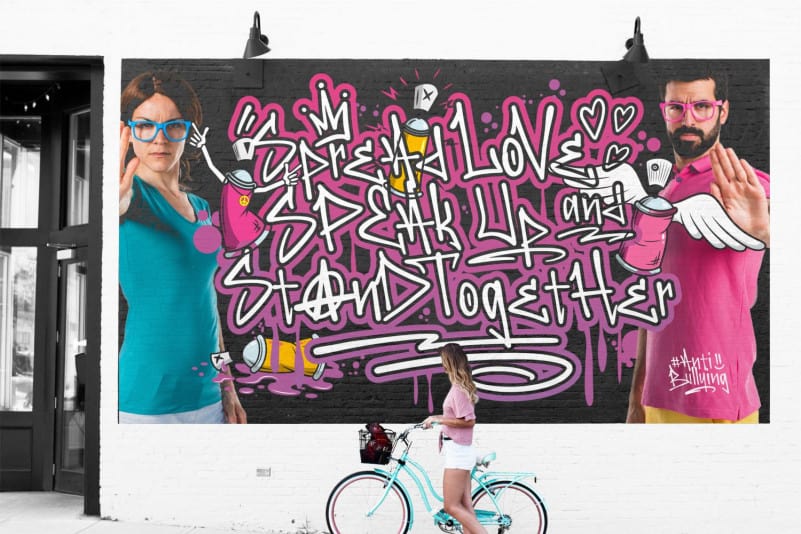
Soul Doubt Display Font
Soul Doubt Display Font is a bouncy and quirky display font. It will add a fresh and contemporary touch to your designs. Add this unique display font to each of your creative ideas and notice how it makes them stand out!